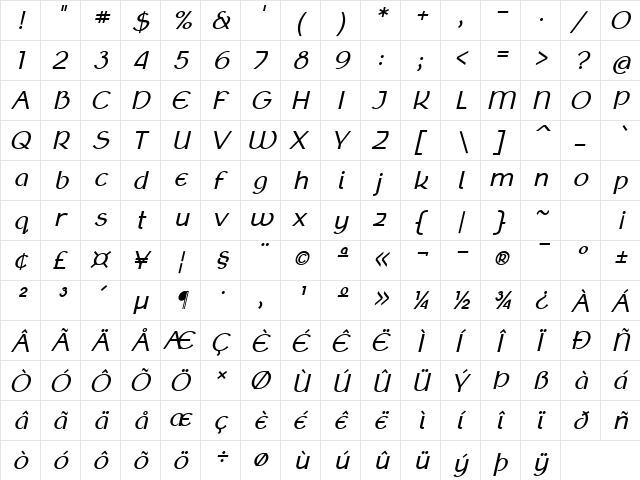
Klaudia Oblique
Design Context for Klaudia Typeface
Klaudia takes a measured approach to typography — its balanced proportions and neutral character make it a reliable workhorse for both digital and print work. The dynamic lean of this cut emphasises speed and emphasis in any layout.
Pro Tip: Try Klaudia for annotation and caption copy alongside an upright companion — the contrast in angle creates a dynamic but ordered typographic system.